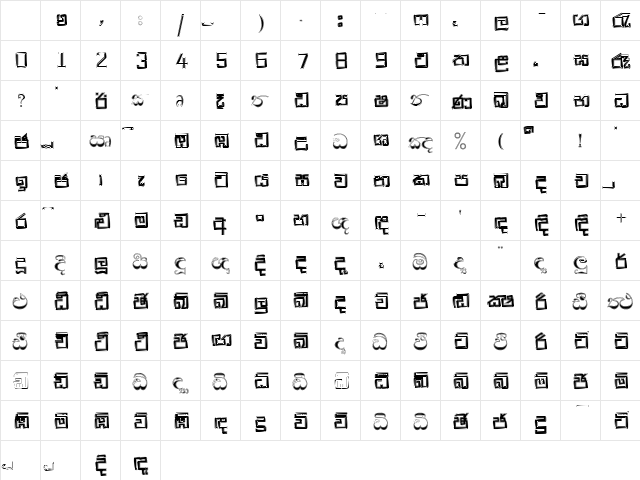
Complete Bu_Nisha Normal glyph index. Displaying only characters natively supported by Bu_Nisha Normal font.
Bu_Nisha is a composed and adaptable typeface that performs quietly and consistently across a wide range of design contexts.